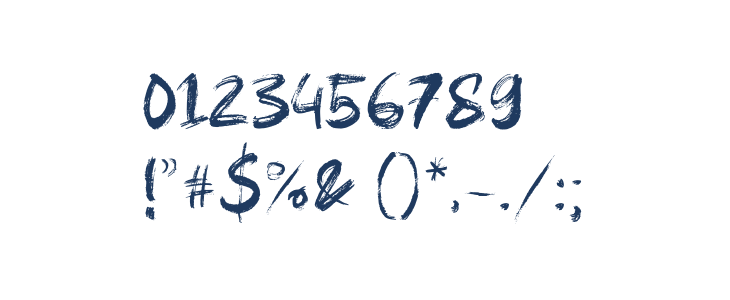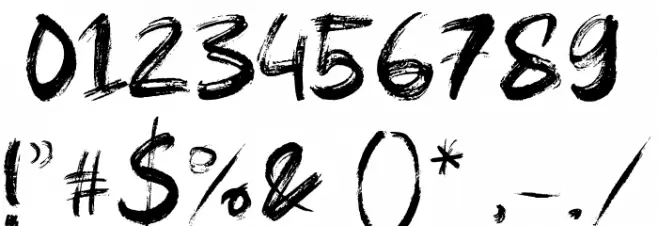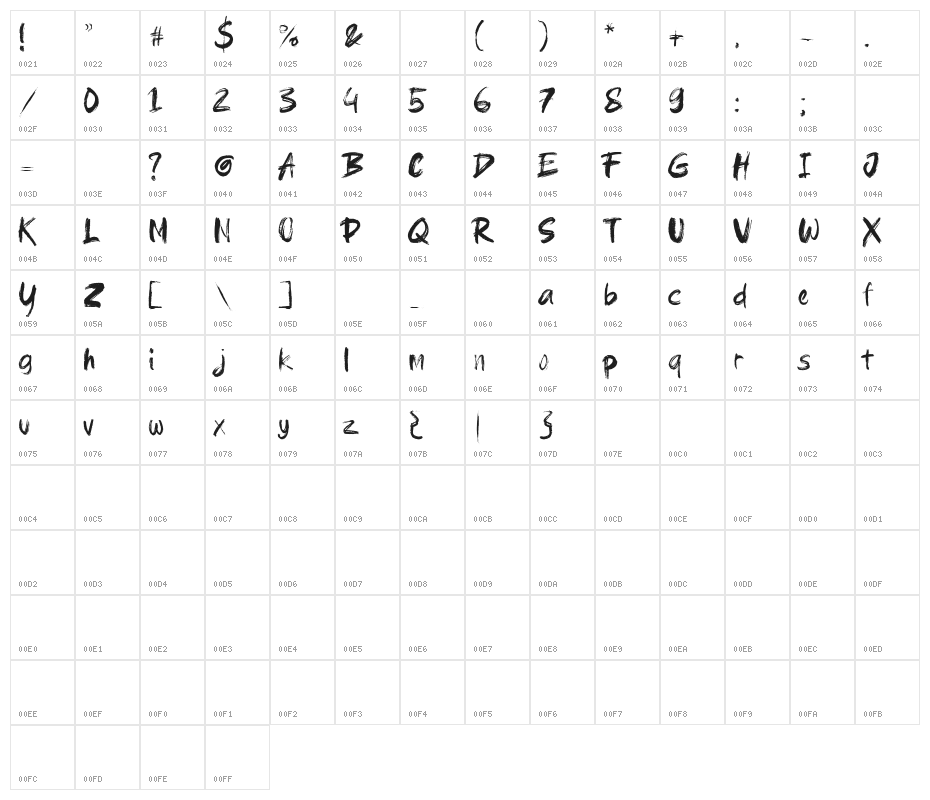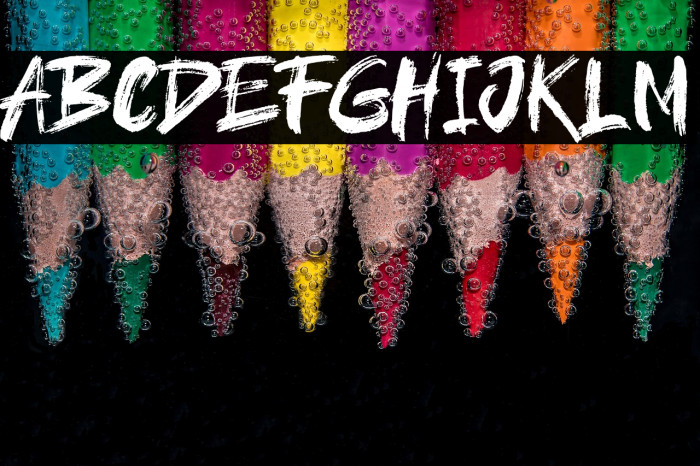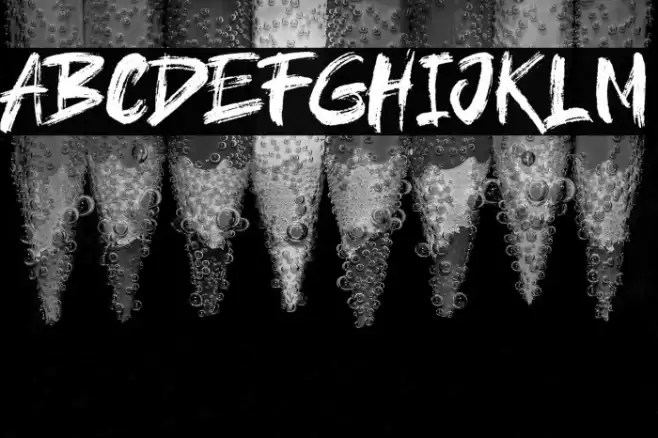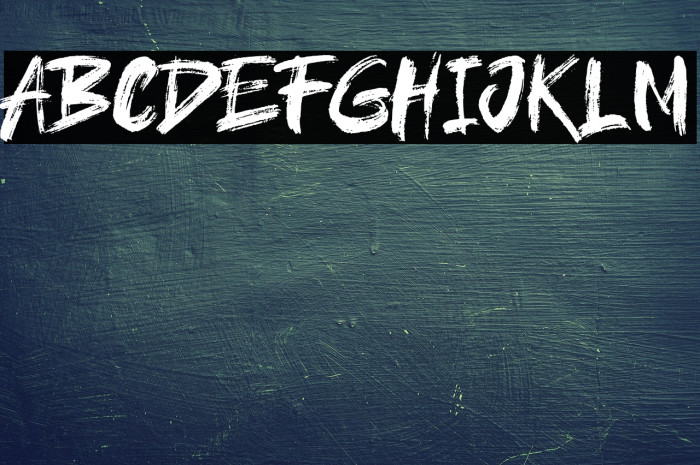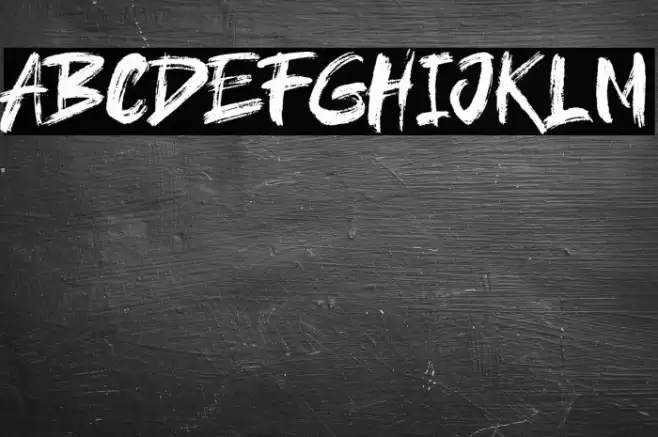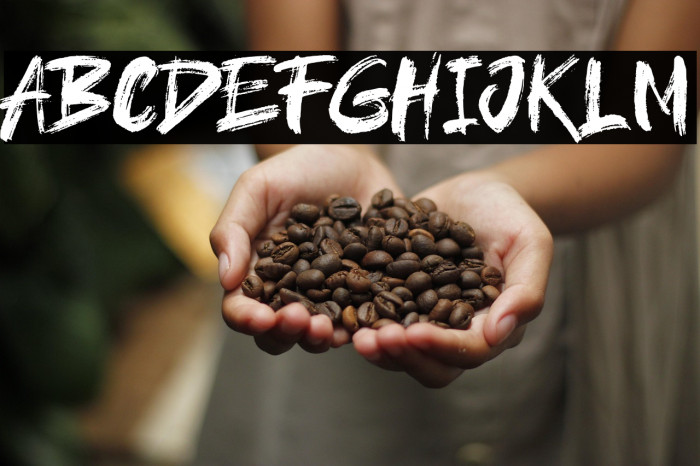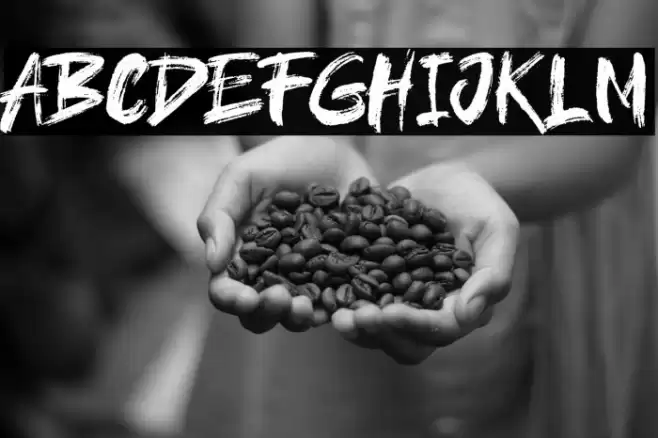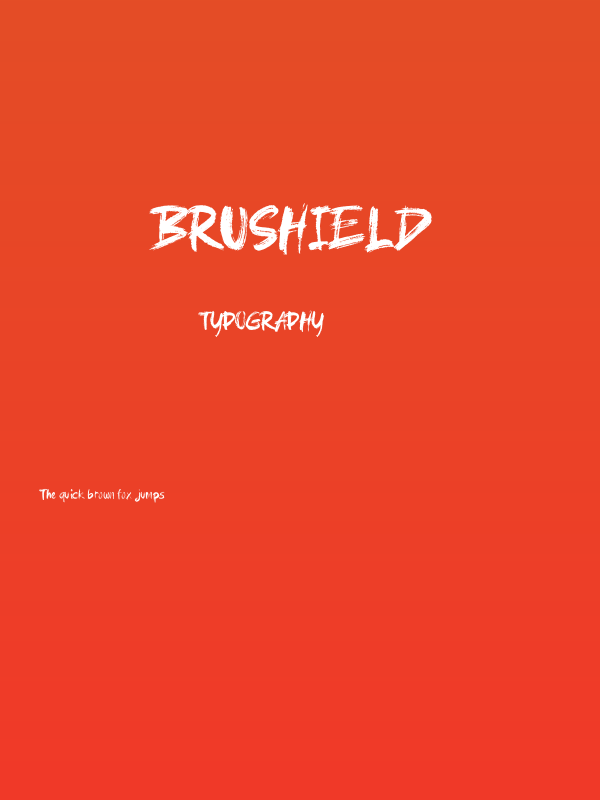
brushield Font
brushield Description
This font features a bold, expressive brush style that mimics the texture and flow of hand-painted strokes. The characters are dynamic and energetic, with varying thicknesses that create a sense of movement and spontaneity. The uppercase and lowercase letters maintain a consistent style, while the numbers and special characters are equally bold and impactful. This font is ideal for projects that require a personal touch or an artistic flair, as it captures the essence of hand-drawn lettering with a modern twist.
| Proposed Projects | Ideal for branding, posters, artistic projects, and any design requiring a personal, handcrafted feel. |